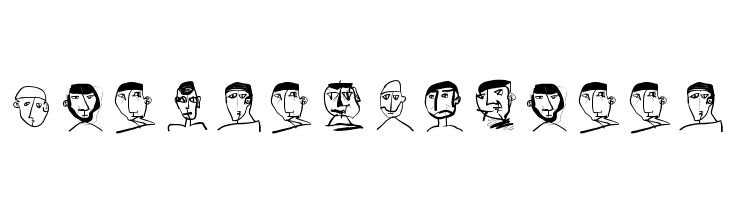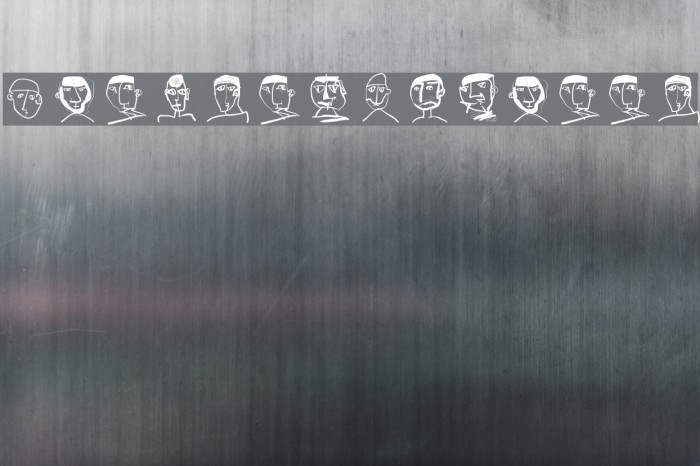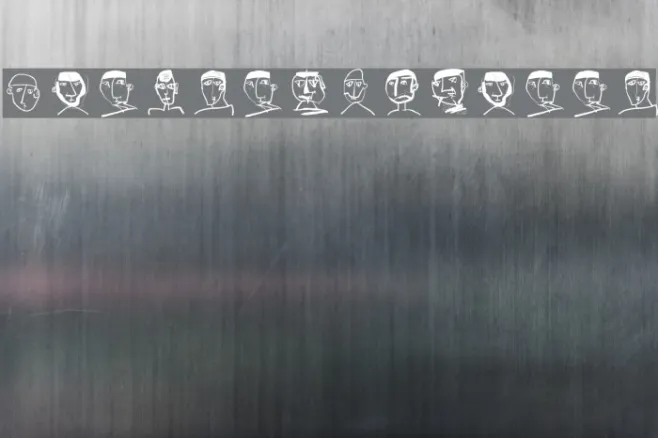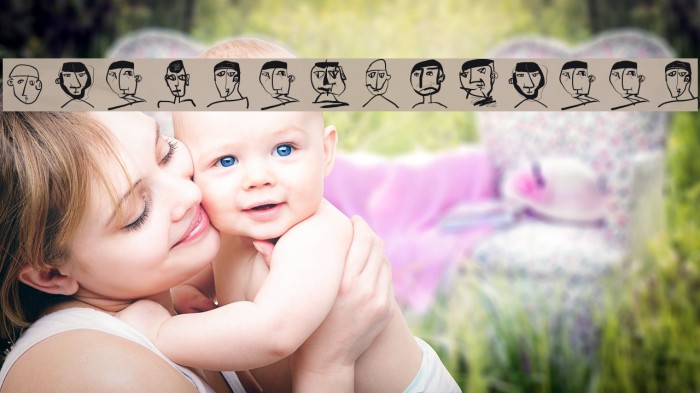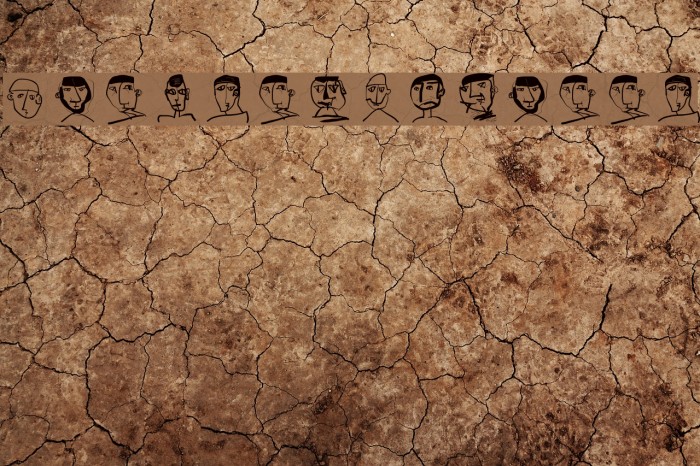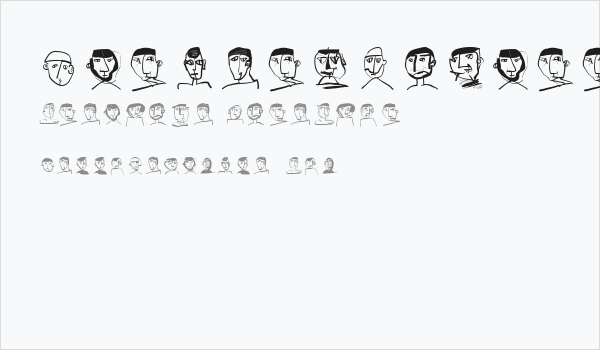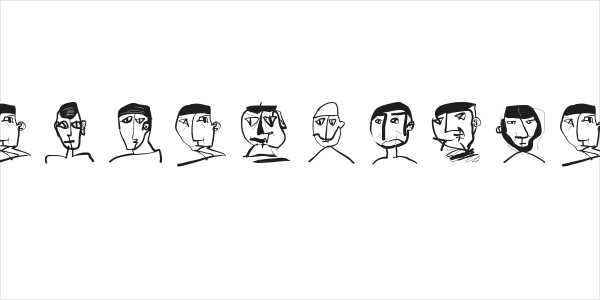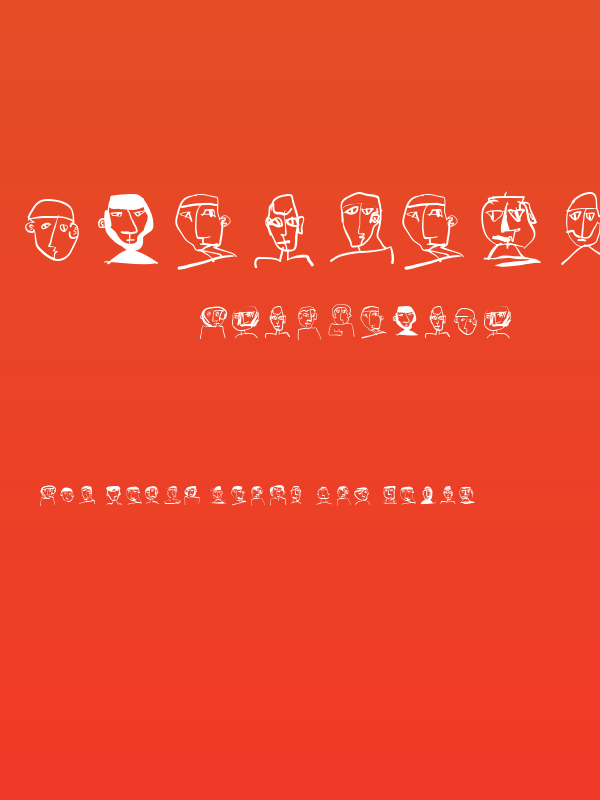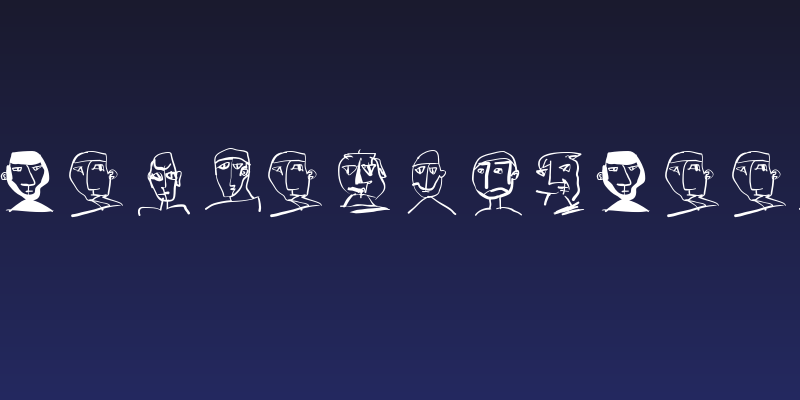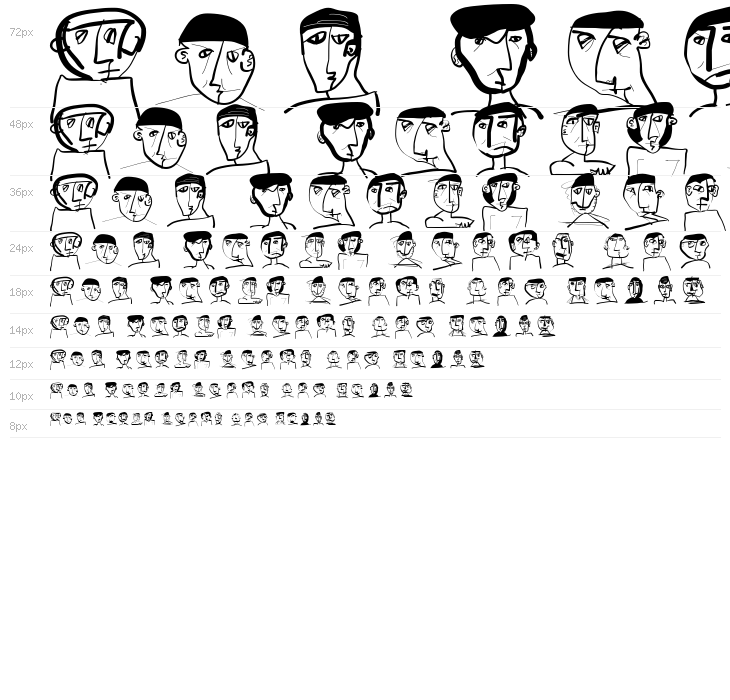
HarpersBizarre Font
HarpersBizarre Description
A highly decorative and whimsical font composed of abstract, hand-drawn faces for each character, giving a playful and artistic impression. Each glyph is unique, with varying line thickness and expressive features, making it more of an illustrative display typeface.
| Overall Style | Decorative, Artistic, Whimsical |
| Use Case | Logos, Posters, Art projects, Headlines |
| Proposed Projects | ChildrenΓ’β¬β’s books, album covers, art posters, creative branding, editorial illustrations. |